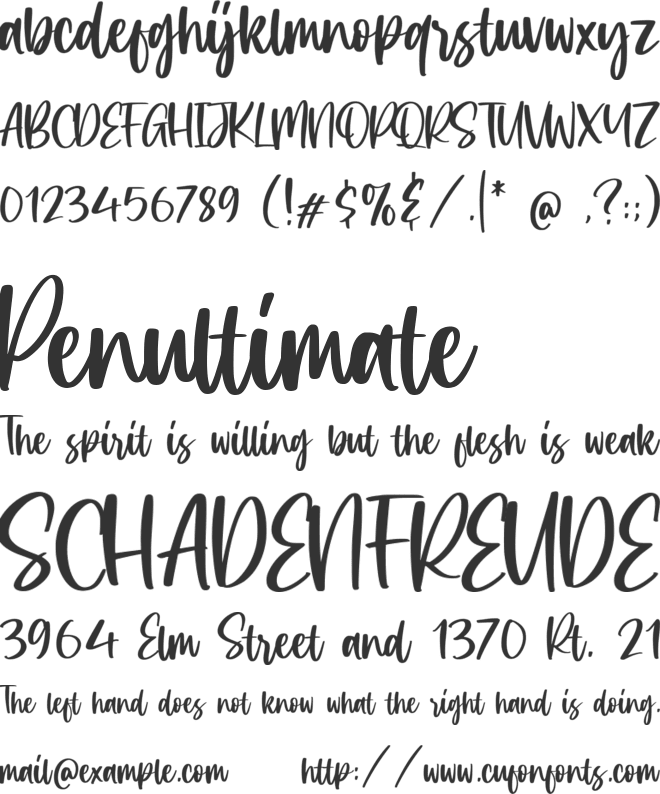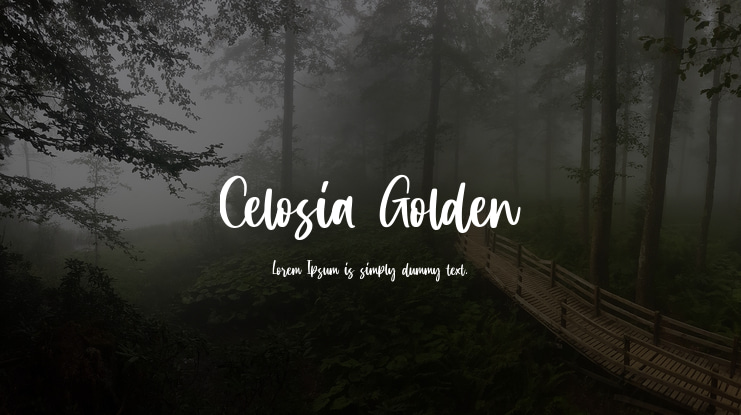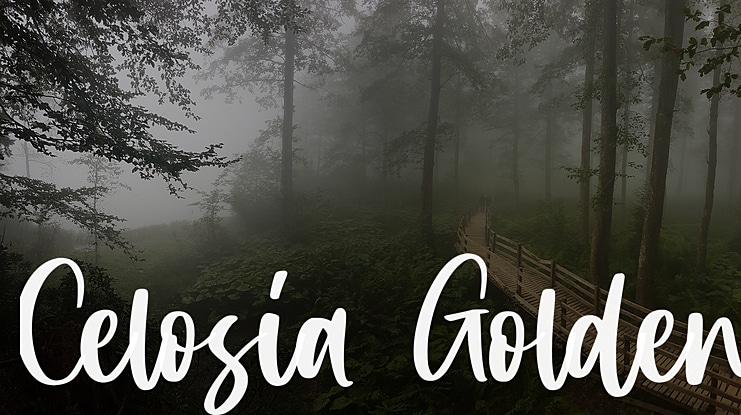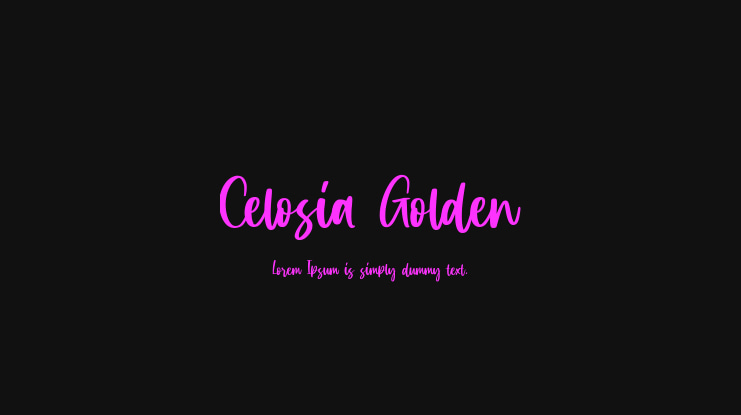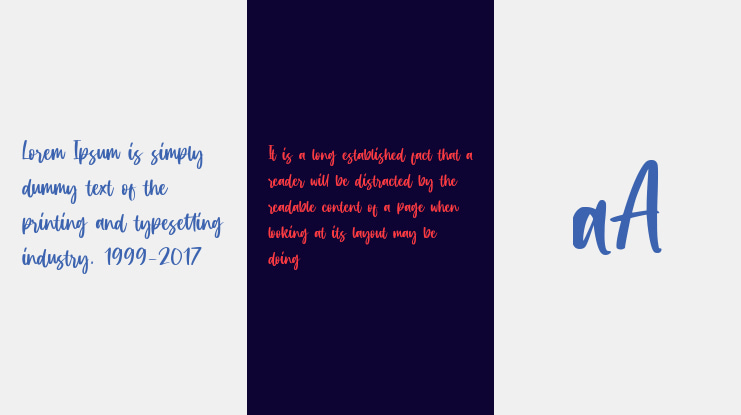
Celosia Golden Font
Letterative Studio
Introducing by Letterative Studio : Celosia Golden Font
Celosia Golden is a Modern Calligraphy Font
Celosia Golden is perfect for product packaging, branding project, megazine, social media, wedding, or just used to express words above the background.
Celosia Golden also multilingual support